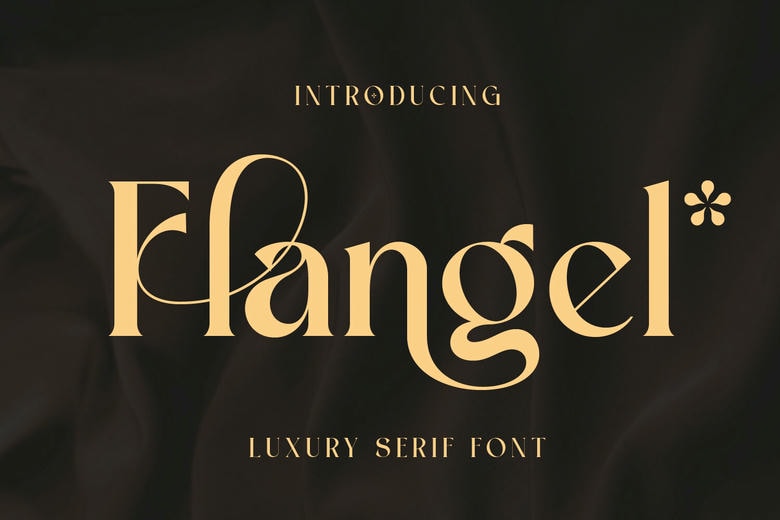
Flangel Font
Flangel is a magnificent serif typeface, beautifully implemented with graceful curves and subtle details, and incorporates a modern but vintage concept. Flangel is a breathtaking luxury serif typeface, which combines smoothly classical beauty with a modern show feel of sophistication.
Its basic design is a high contrast serif with excessive thin strokes and high verticals that send an immediate idea of luxury and high quality. The beauty of the Flangel typeface is the presence of sublime alternate swash characters, that bring sweeping curves and elaborate links (such as the ones found in the F and the g) into headlines, and make them a beautiful, art-like expression.
Designed in a way that captures elegance and high-end appeal, each of the characters is a masterpiece in smooth transitions and lines that creates a visual masterpiece. Perfect in luxurious branding, editorial collections, beauty products, bridal thought, logo development, and every one of the creative jobs that requires up-market and sophisticated look.
This is the ultimate font to use in branding a luxurious product, in designing fashion magazines, in producing a fine wedding stationery and in doing the exclusive packaging that requires the royal and sophisticated look about it.
Flangel Serif Font